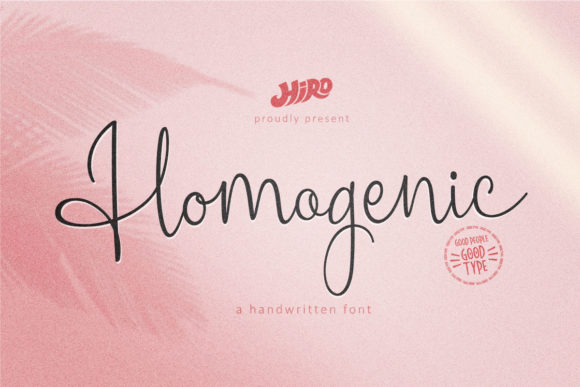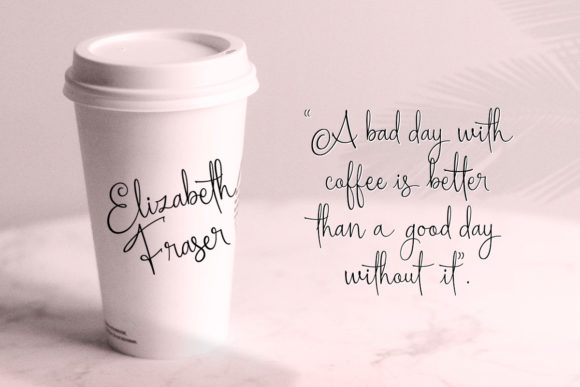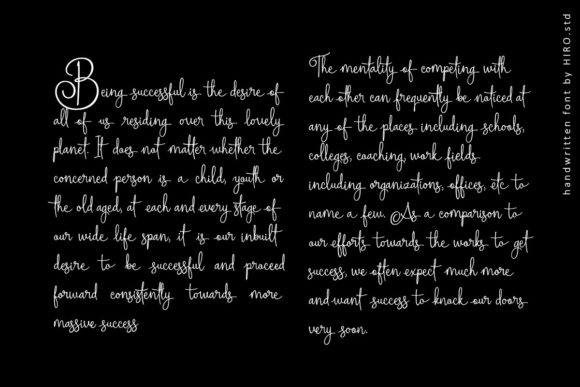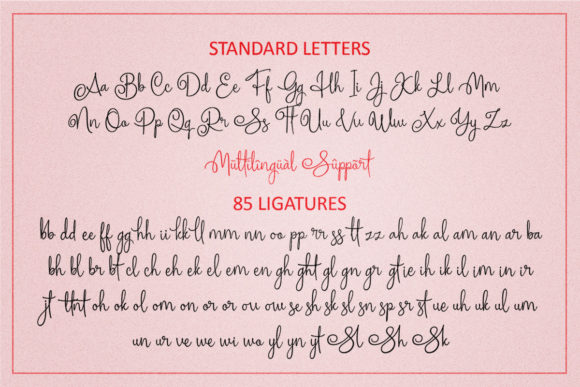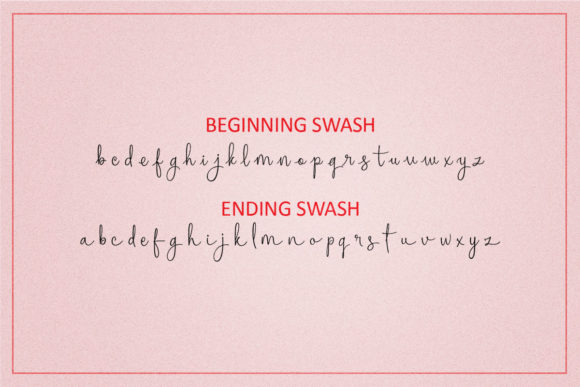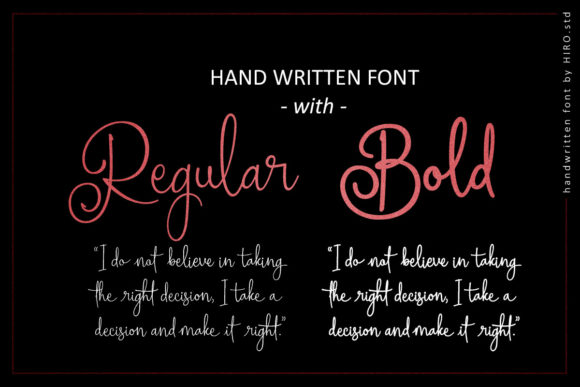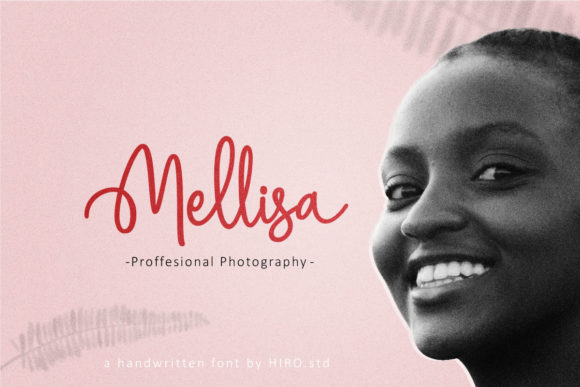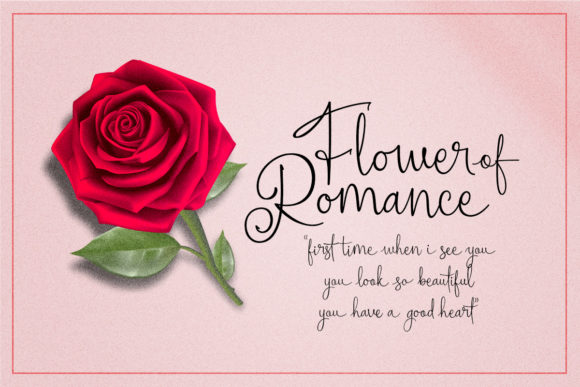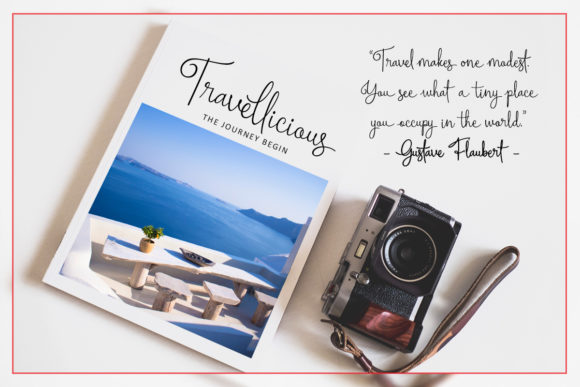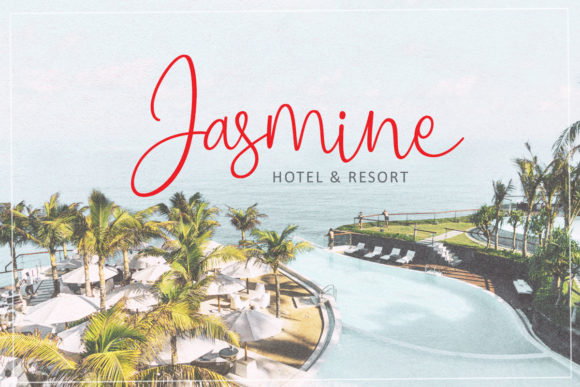
Homogenic Font
About Homogenic Font
Homogenic feels equally charming and elegant. It looks lovely on wedding invitations, thank you cards, quotes, greeting cards, logos, business cards and every other design which needs a handwritten touch.